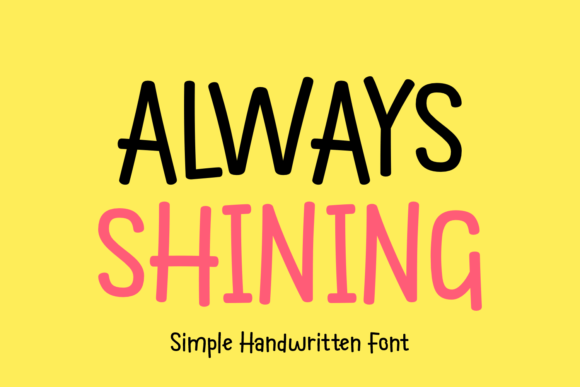
The Magic of Handwritten Scripts: Discovering the Bertty Font
There’s something about the imperfections of handwritten text that can add a touch of warmth and personality to any design. Perhaps it’s the way the pen glides across the paper, leaving behind a trail of unique flourishes and imperfections. For designers, this is the magic of handwritten scripts – and the Bertty Font is a masterclass in capturing this essence.
With its intricately crafted details and elegant lines, the Bertty Font is a go-to choice for designers looking to add a touch of sophistication to their projects. And with its PUA encoding, accessing all the glyphs and swashes is a breeze, making it a valuable tool for any designer looking to elevate their work.
Bertty Font Key Features
- Font Family: Bertty Font is a sans-serif typeface designed for digital use.
- Unique Characteristics: Bertty Font features a clean and modern design with subtle rounded edges, making it suitable for a wide range of applications, including digital interfaces, signage, and publishing.
Bertty Font Review
I recently had the chance to work with the Bertty font, and I must say it’s a delightful addition to any design project. ✨ The font’s friendly and approachable nature makes it perfect for applications where you want to convey a sense of warmth and approachability. From children’s book covers to home decor websites, Bertty is a great choice.
One of the things that stood out to me about Bertty is its versatility. It comes in a range of weights and styles, making it easy to use in a variety of contexts. Whether you’re looking for a bold, eye-catching headline or a subtle, elegant body text, Bertty has got you covered. ✨ The font’s x-height is also well-proportioned, making it easy to read at both large and small sizes.
However, there are a few limitations to keep in mind. ⚠️ At smaller font sizes, Bertty can start to look a bit pixelated, which may be a concern for designers who are looking to use the font in very small contexts. Additionally, the font’s ligatures can be a bit wonky at times, which may require some extra attention from the designer.
Overall, I’m really impressed with the Bertty font. It’s a solid choice for designers who are looking for a friendly, approachable font that’s easy to use. With a little extra attention to detail, Bertty can be a real showstopper in any design project.
- friendly and approachable nature
- range of weights and styles
- well-proportioned x-height
- easy to read at large and small sizes
- ligatures can be a bit wonky at times
- may look pixelated at small font sizes
Bertty Font Practical Application Guide
For best results, use the Bertty font in conjunction with a clean and minimalist design aesthetic.
Use the Bertty font to add a touch of whimsy and playfulness to your designs.
Use the Bertty font to add a touch of personality to your presentations and documents.
The Bertty font is perfect for:
– Children’s book illustrations
– Digital signage
Lato is a sans-serif font designed by Łukasz Dziedzic. It’s a versatile font that can be used for both headings and body text, making it a great alternative to Bertty Font for designers who want a font that can handle multiple tasks. Lato has a friendly and approachable feel, making it perfect for use in digital products, websites, and applications where a warm and inviting tone is necessary. Compared to Bertty Font, Lato has a more rounded and humanistic feel, making it ideal for designers who want a font with a friendly personality.